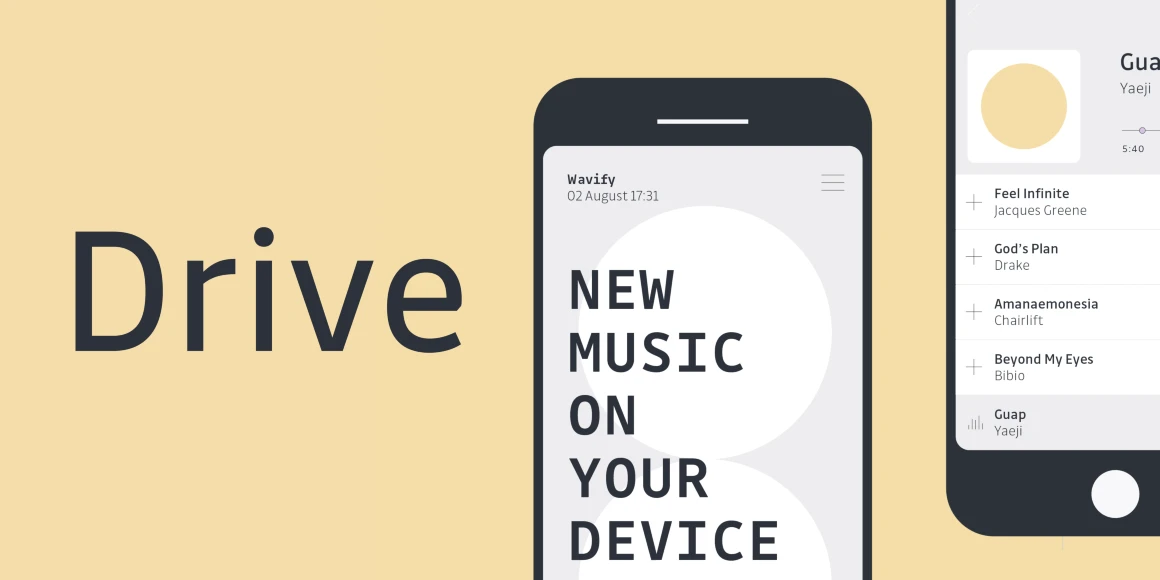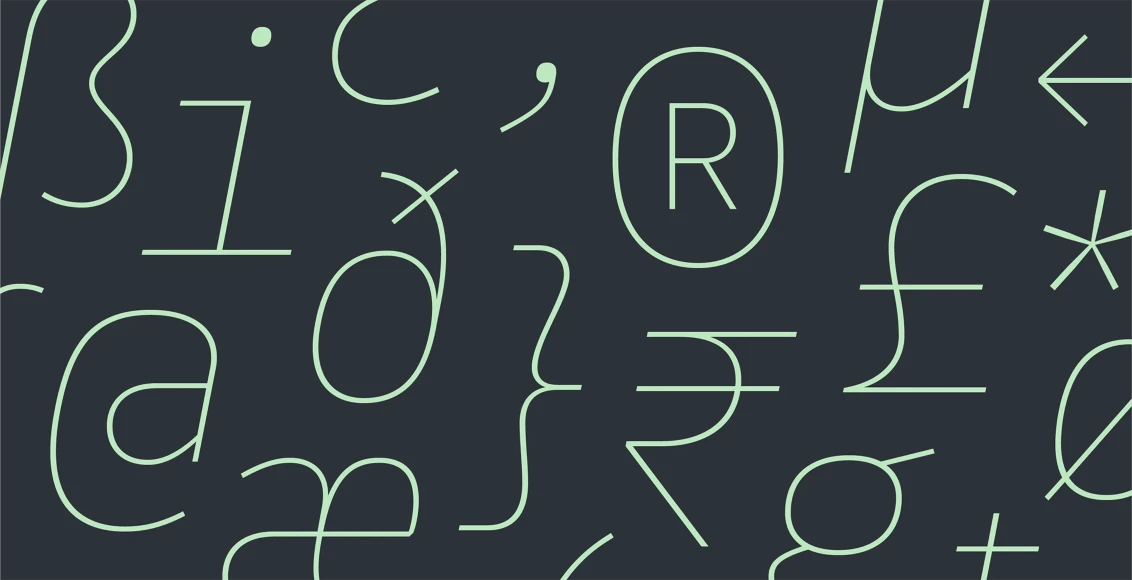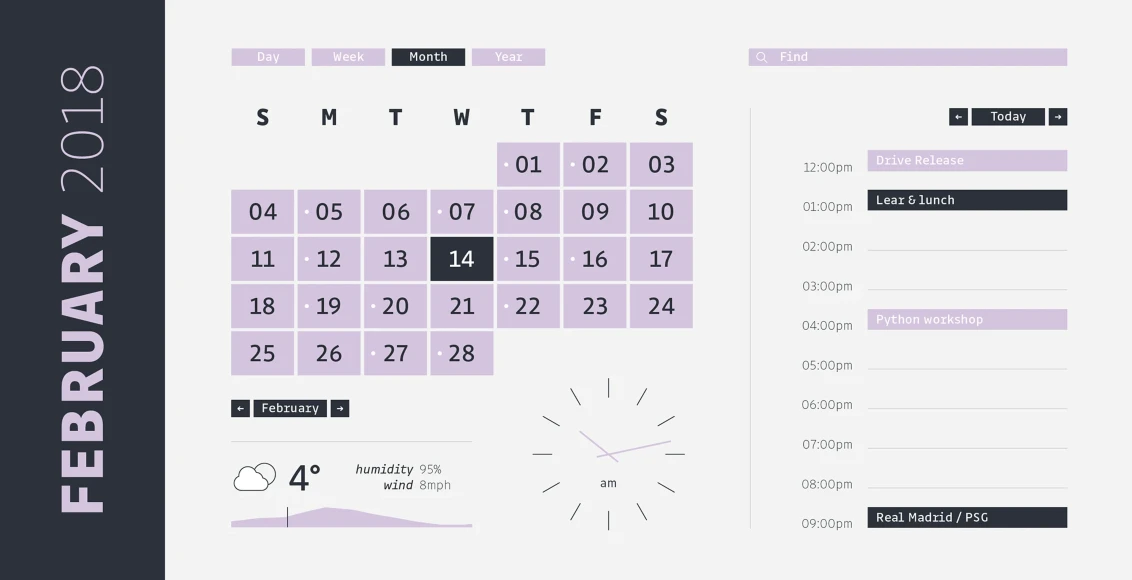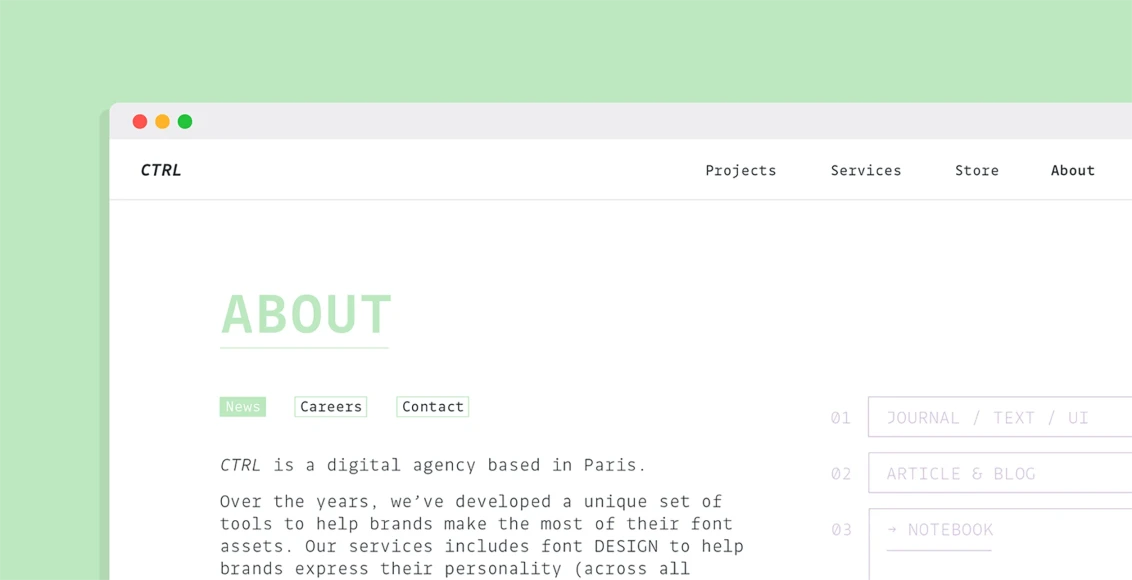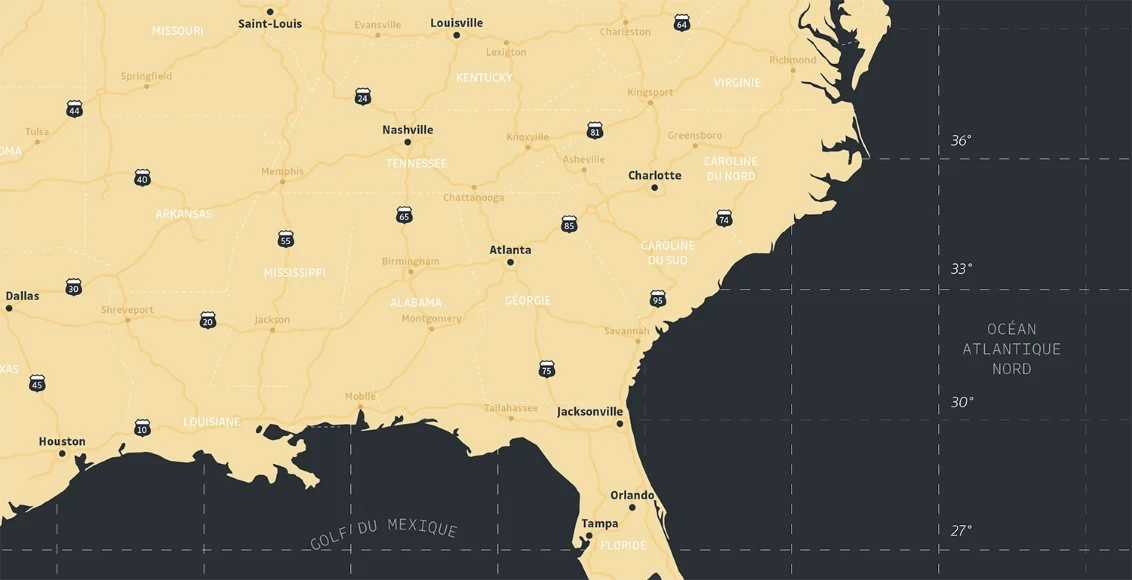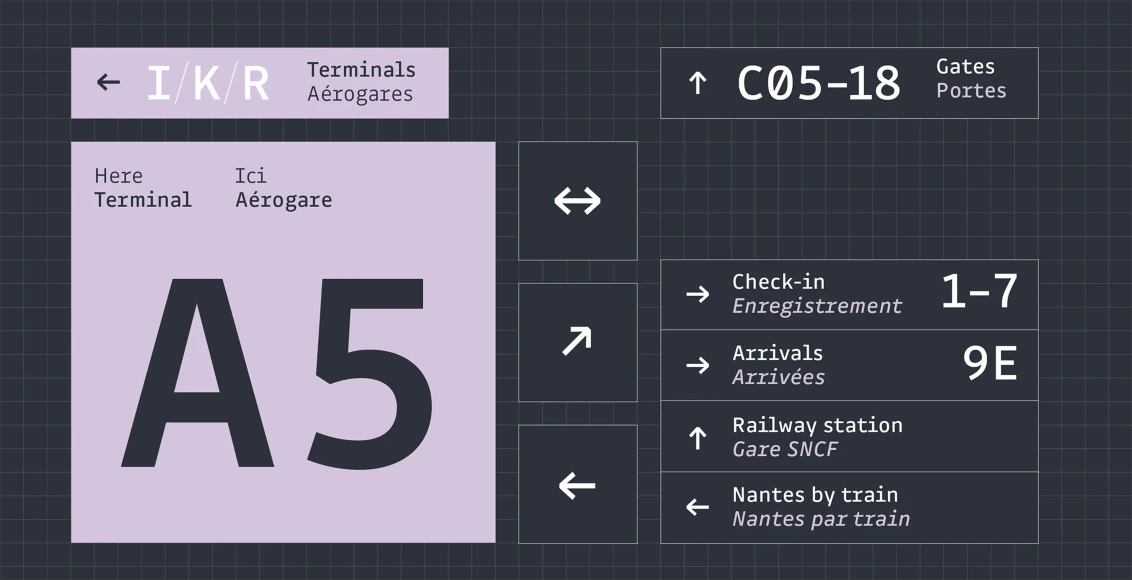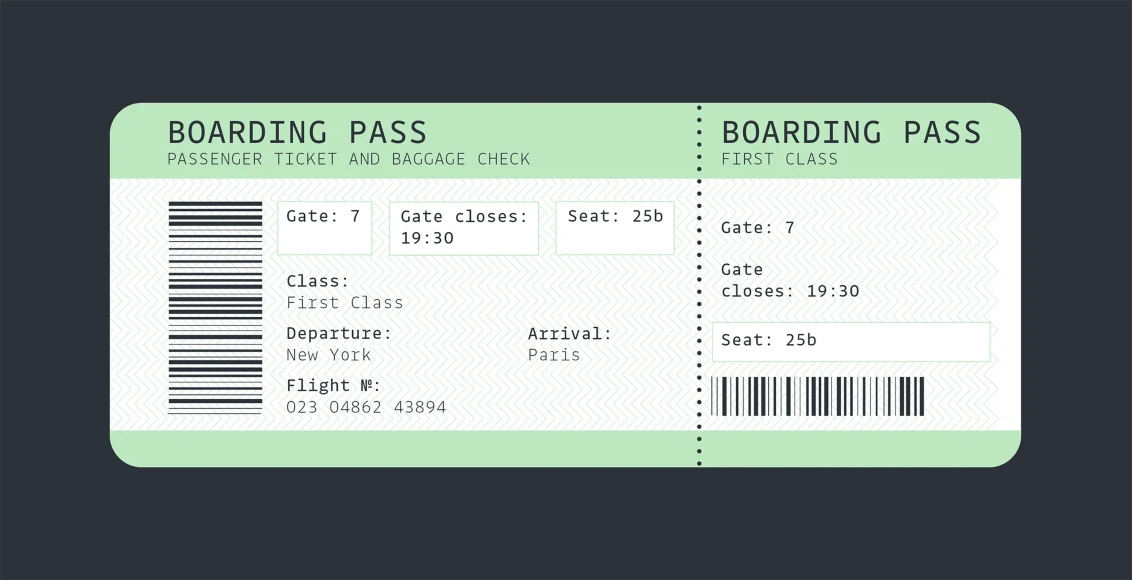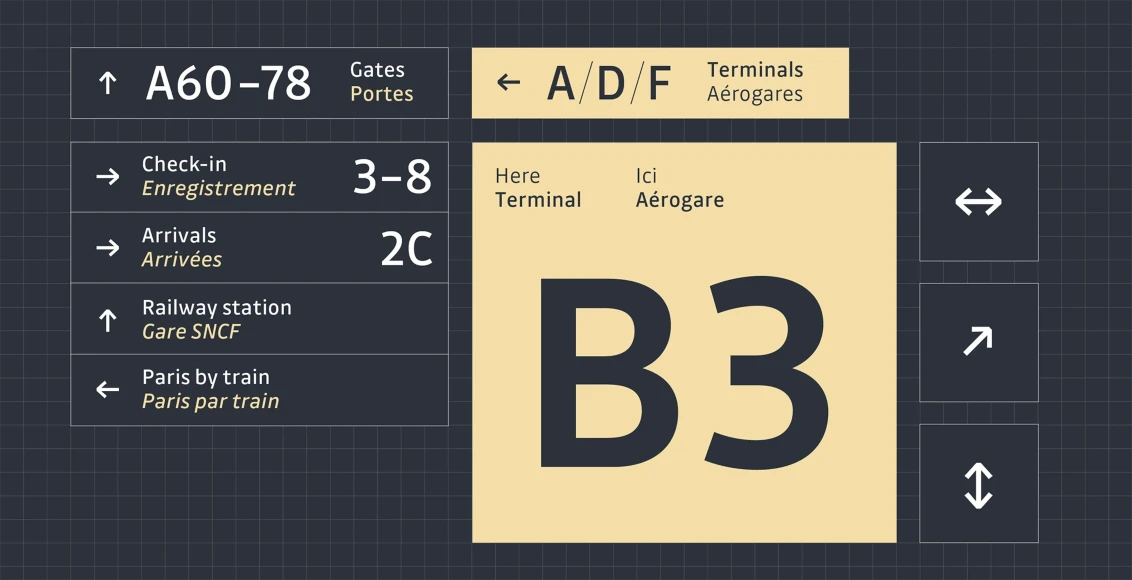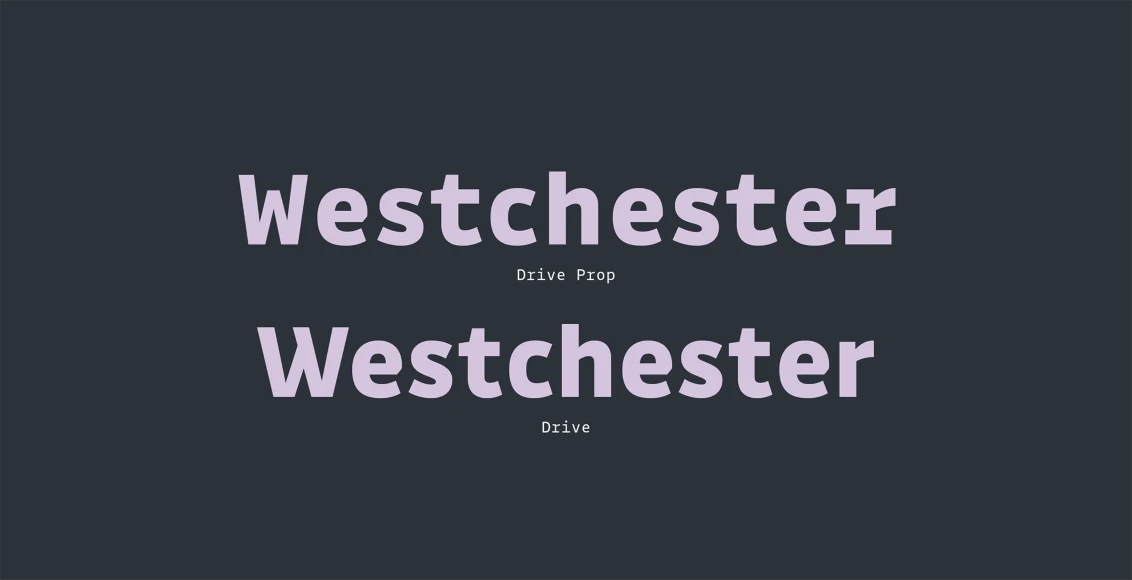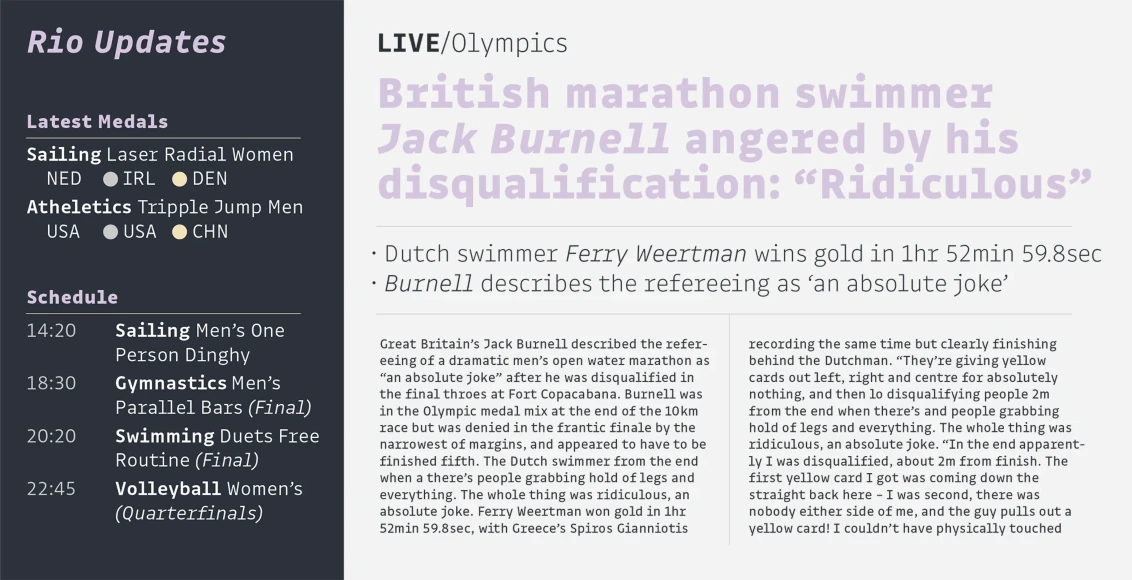
![Drive font by Black[Foundry] — the word “Drive” in large sans serif letters next to a smartphone displaying “NEW MUSIC ON YOUR DEVICE” and a music playlist.](https://typographer.io/1/assets/blk:drive/banner-1.webp:size(1160,580)?ae04)
![Drive font by Black[Foundry] — a calendar interface showing the month of February 2018, with the words “Drive Release” and “Python workshop” in sans serif type.](https://typographer.io/1/assets/blk:drive/banner-2.webp:size(1132,580)?8cec)
![Drive font by Black[Foundry] — a browser window showing the word “ABOUT” in light green sans serif letters, with smaller sans serif text below it, and navigation links at the top right](https://typographer.io/1/assets/blk:drive/banner-3.webp:size(1132,580)?9038)
![Drive font by Black[Foundry] — a map of the southeastern United States and Gulf of Mexico, with major cities and interstate highways labeled, and the Atlantic Ocean labeled in French](https://typographer.io/1/assets/blk:drive/banner-4.webp:size(1132,580)?c64d)
![Drive font by Black[Foundry] — a grid of airport signage showing sans serif letters and numbers like A5, C05-18, and 1-7, with text in English and French, and arrow icons.](https://typographer.io/1/assets/blk:drive/banner-5.webp:size(1132,580)?cebd)
![Drive font by Black[Foundry] — a green and white boarding pass with sans serif text, two barcodes, and a dotted line down the middle](https://typographer.io/1/assets/blk:drive/banner-6.webp:size(1132,580)?0bd3)
![Drive font by Black[Foundry] — a grid of airport signage with sans serif text in English and French, including “A60-78 Gates Portes” and a large “B3” on a yellow panel.](https://typographer.io/1/assets/blk:drive/banner-7.webp:size(1132,580)?eca1)
![Drive font by Black[Foundry] — the word “Westchester” in two sans serif styles, one labeled “Drive Prop” and the other “Drive”](https://typographer.io/1/assets/blk:drive/banner-8.webp:size(1132,580)?c150)
![Drive font by Black[Foundry] — the words “Rio Updates” in italic sans serif, a schedule of events, and a news headline about a “British marathon swimmer” in a light purple sans serif.](https://typographer.io/1/assets/blk:drive/banner-9.webp:size(1132,580)?41e9)
![Drive font by Black[Foundry] — a pattern of light green monolinear sans serif characters and symbols, including the letters B, i, C, R, the number 1, an ampersand, a comma, a registered trademark symbol, a mu symbol, an at sign, a left curly brace, a rupee symbol, a pound sterling symbol, an asterisk, a plus sign, and a slashed zero.](https://typographer.io/1/assets/blk:drive/banner-10.webp:size(1132,580)?a8c6)